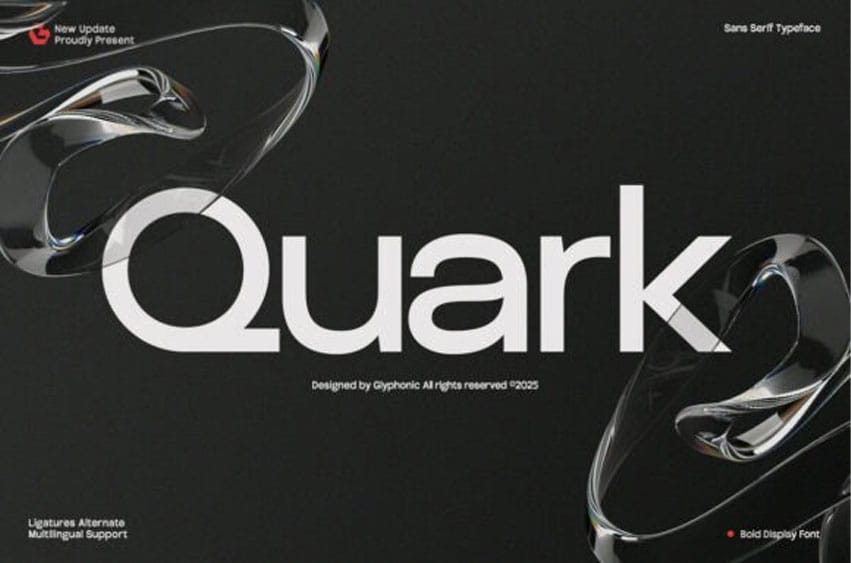
Quark Font is a sleek, modern sans-serif typeface that blends minimalist structure with refined clarity. It embodies a contemporary spirit while maintaining high readability, making it perfect for branding, editorial layouts, logos, user interfaces, and product packaging.
With its clean lines, uniform stroke widths, and geometric balance, Quark delivers a crisp and professional feel. The letterforms are constructed to appear both technical and elegant, making it a versatile choice for designers working in tech, fashion, architecture, and lifestyle branding.